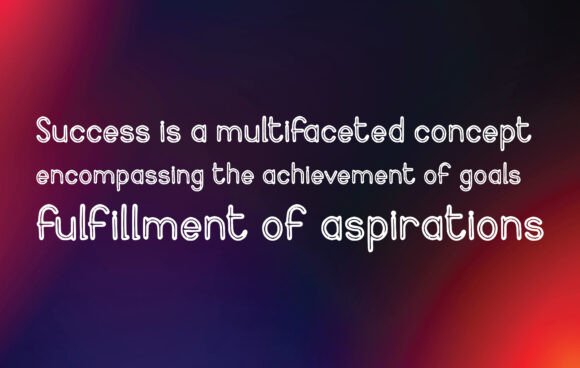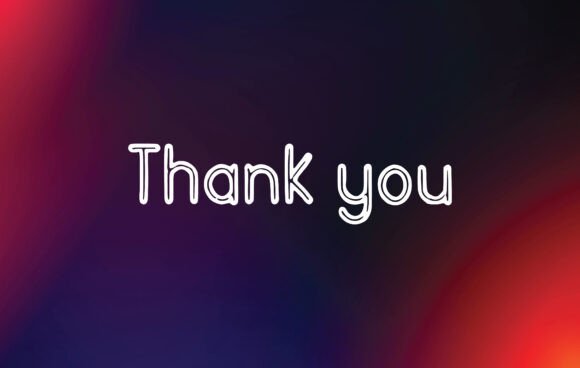
Baker Font: Elevate Your Creative Ideas with this Lovely Handwritten Font
Are you a designer, craftsperson, or creative looking for the perfect font to take your projects to the next level? Look no further than the Baker Font! This beautiful handwritten font is designed to help you create stunning eye-catching logos, branding, and quotes that will leave a lasting impression.
What Makes Baker Font So Special?
Baker Font is a unique and elegant handwritten font that boasts a distinctive charm. Its beautiful lettering and flowing curves make it perfect for creating a wide range of creative projects, from logos and branding to social media graphics and quotes. With Baker Font, you can add a touch of sophistication and whimsy to your designs, setting them apart from the crowd.
Key Features of Baker Font
- Handwritten with love: Baker Font is carefully crafted with a personal touch, giving it a warm and inviting feel.
- Unique and elegant: This font boasts a distinctive style that will add a touch of sophistication to your designs.
- Perfect for creative projects: Baker Font is ideal for creating eye-catching logos, branding, quotes, and more.
Why Choose Baker Font?
With so many fonts available, why choose Baker Font? Here are just a few reasons why this font stands out:
- Stand out from the crowd: Baker Font is a unique and distinctive font that will help your designs stand out.
- Save time: With Baker Font, you can create stunning designs in no time, thanks to its easy-to-use and versatile nature.
- Elevate your brand: This font is perfect for creating a cohesive brand identity that will leave a lasting impression on your audience.
How to Use Baker Font in Your Designs
Using Baker Font in your designs is easy! Here are a few tips to get you started:
- Pair it with bold colors: Baker Font looks stunning when paired with bold, bright colors.
- Experiment with textures: Add depth and interest to your designs by experimenting with different textures.
- Play with layout: Don’t be afraid to get creative with your layout – Baker Font looks great in a variety of configurations.
In conclusion, Baker Font is a beautiful and versatile handwritten font that is perfect for designers, craftspersons, and creatives looking to elevate their projects. With its unique and elegant style, ease of use, and versatility, Baker Font is the perfect choice for creating eye-catching logos, branding, and quotes. So why wait? Download Baker Font today and take your creative ideas to the highest level!